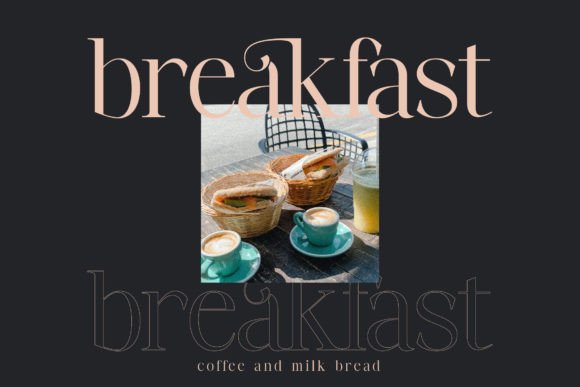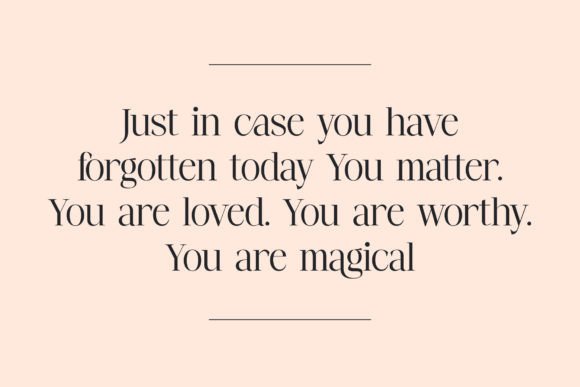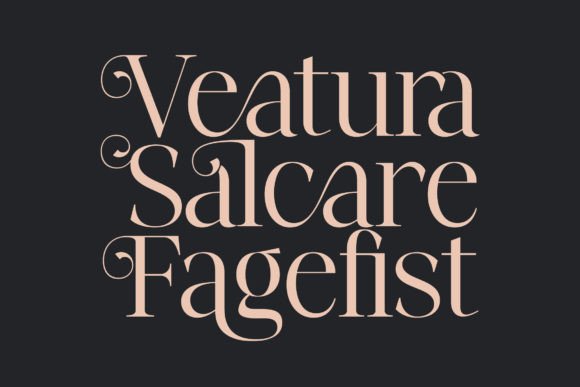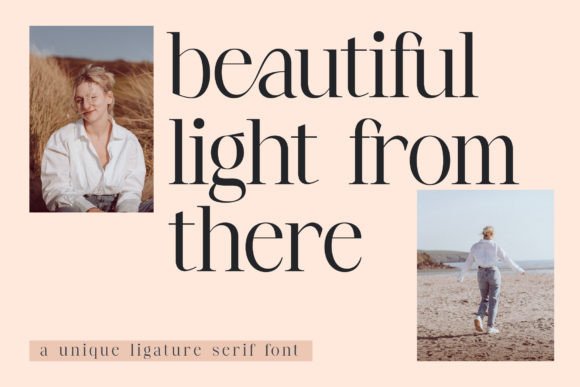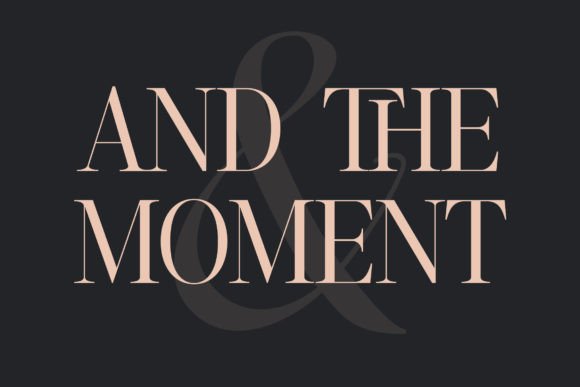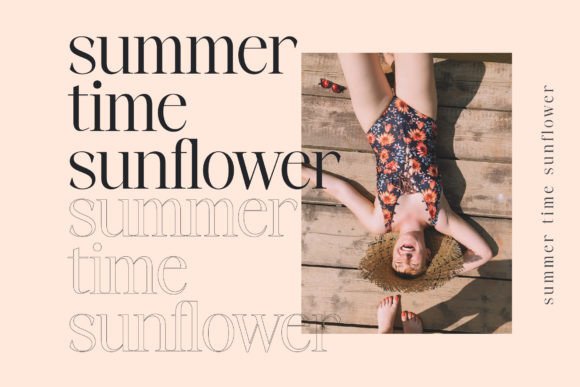
The Elusive Font: My Journey with Fangira
I still remember the design project that led me to discover the stunning Fangira font. I was working on a luxury brand’s logo, and my client was adamant about finding a serif font that exuded elegance and sophistication. As I scoured the internet for the perfect typeface, I stumbled upon Fangira, and it instantly caught my attention. Its unique blend of modern and classic elements made it an instant favorite, and I knew I had to learn more about it.
An Honest Review of Fangira Font
What I Love About Fangira ✨
- ✅ Elegant and luxurious feel, perfect for high-end brands and designs
- ✅ Unique serif style that sets it apart from other fonts
- ✅ Highly versatile, suitable for various design projects, from logos to magazine titles
- ✅ Well-designed lettering and attention to detail
- ⚠️ Some users may find the font a bit too ornate for certain projects
- ⚠️ Limited availability of condensed or italic versions
Fangira font comes with a range of OpenType features and glyphs that can elevate your design. Some of these features include:
- Ligatures: Replace standard character combinations with stylized ligatures.
- Stylistic Alternates: Swap out standard characters with alternate glyphs for a unique look.
- Glyphs: Access additional characters, such as ornaments and swashes, to add more flair to your design.
The Backstory of Fangira Font
Fangira font was designed with the intention of creating a unique and elegant serif font that captures the essence of luxury and sophistication. The designer aimed to create a typeface that would be perfect for high-end brands, fashion magazines, and elegant titles. With its distinctive style and attention to detail, Fangira has become a popular choice among designers.
Q: What type of projects is Fangira font best suited for?
A: Fangira font is perfect for luxury brands, fashion magazines, elegant titles, and high-end designs.
Q: Does Fangira font come with OpenType features?
A: Yes, Fangira font comes with a range of OpenType features, including ligatures, stylistic alternates, and glyphs.